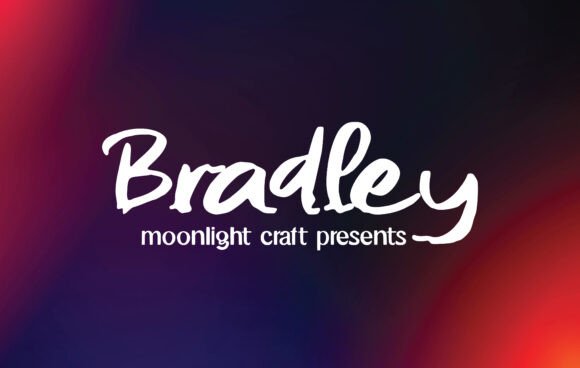
Bradley Font: Elevate Your Creative Ideas with this Lovely Handwritten Font
In the world of typography, fonts play a crucial role in conveying messages, expressing emotions, and creating visual identities. Among the numerous fonts available, Bradley Font stands out as a lovely and beautiful handwritten font that has the potential to take your creative ideas to the highest level. In this article, we’ll explore the features, benefits, and uses of Bradley Font, and why it’s an excellent choice for creating eye-catching logos, branding, and quotes.
What is Bradley Font?
Bradley Font is a handwritten font designed to add a personal touch to your creative projects. Its unique, cursive style gives it a distinctive charm that sets it apart from other fonts. The font is carefully crafted to ensure that it is legible, yet elegant, making it perfect for a wide range of applications.
Key Features of Bradley Font
- Handwritten style: Bradley Font boasts a beautiful, handwritten style that adds a touch of warmth and personality to your designs.
- Legibility: The font is designed to be highly legible, ensuring that your message is conveyed clearly and effectively.
- Elegance: Bradley Font’s cursive style gives it an air of elegance, making it perfect for creating sophisticated designs.
- Versatility: The font is suitable for a wide range of applications, from logos and branding to quotes and social media graphics.
Benefits of Using Bradley Font
Using Bradley Font can bring numerous benefits to your creative projects. Some of the advantages of using this font include:
- Unique visual identity: Bradley Font helps you create a distinctive visual identity that sets you apart from others.
- Emotional connection: The font’s handwritten style creates an emotional connection with your audience, making your message more relatable and engaging.
- Professional look: Despite its handwritten style, Bradley Font has a professional look that is suitable for businesses and individuals alike.
- Ease of use: The font is easy to use and can be integrated into various design software, making it a convenient choice for designers.
Use Cases for Bradley Font
Bradley Font is a versatile font that can be used in various applications. Some of the most popular use cases include:
- Logo design: Create eye-catching logos that reflect your brand’s personality and values.
- Branding: Use Bradley Font to create a consistent visual identity across all your branding materials.
- Quotes and social media graphics: Add a touch of elegance and sophistication to your quotes and social media graphics.
- Packaging design: Use the font to create beautiful packaging designs that stand out on store shelves.
Tips and Tricks for Using Bradley Font
To get the most out of Bradley Font, here are some tips and tricks to keep in mind:
- Pair it with other fonts: Experiment with pairing Bradley Font with other fonts to create a unique visual identity.
- Adjust font size and color: Play around with font sizes and colors to create visual hierarchy and emphasis.
- Use it consistently: Use Bradley Font consistently across all your designs to create a cohesive visual identity.
In conclusion, Bradley Font is a lovely and beautiful handwritten font that has the potential to elevate your creative ideas to the highest level. Its unique style, legibility, and elegance make it an excellent choice for creating eye-catching logos, branding, and quotes. With its versatility, ease of use, and professional look, Bradley Font is a valuable addition to any designer’s toolkit.